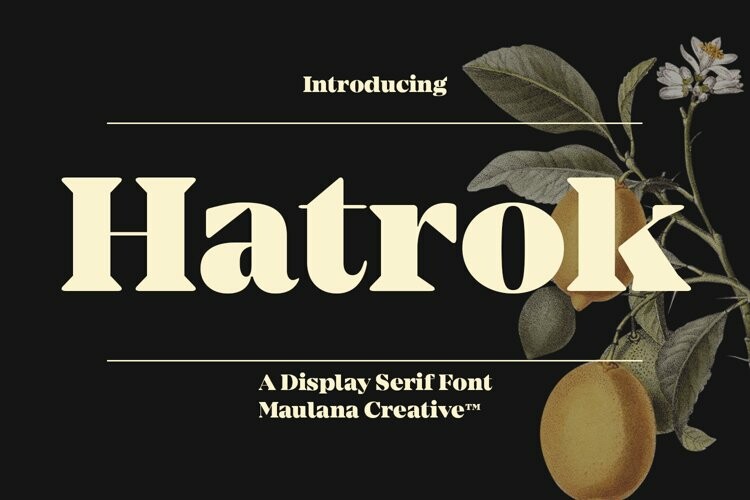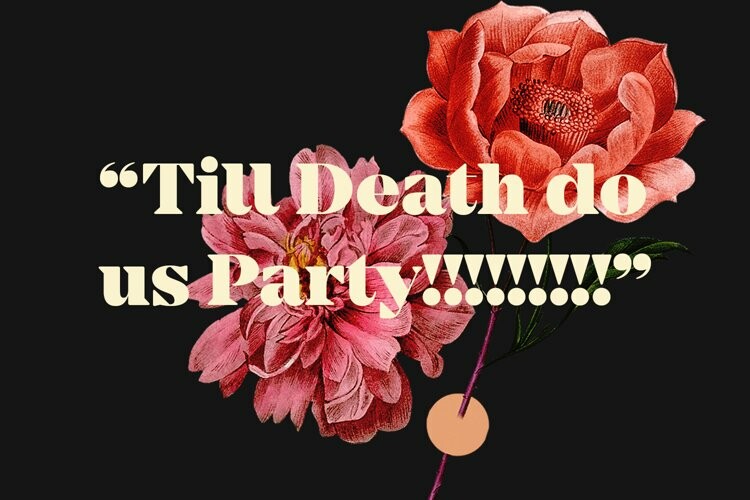
Hatrok Font
Hatrok FontHatrok is a modern bold serif display font. With bold contrast stroke, fun character with a bit of ligatures and alternates. To give you an extra creative work. Hatrok font support multilingual more than 100+ language. This font is good for logo design, Social media, Movie Titles, Books Titles, a short text even a long text letter and good for your secondary text font with sans or serif. Make a stunning work with Hatrok font.